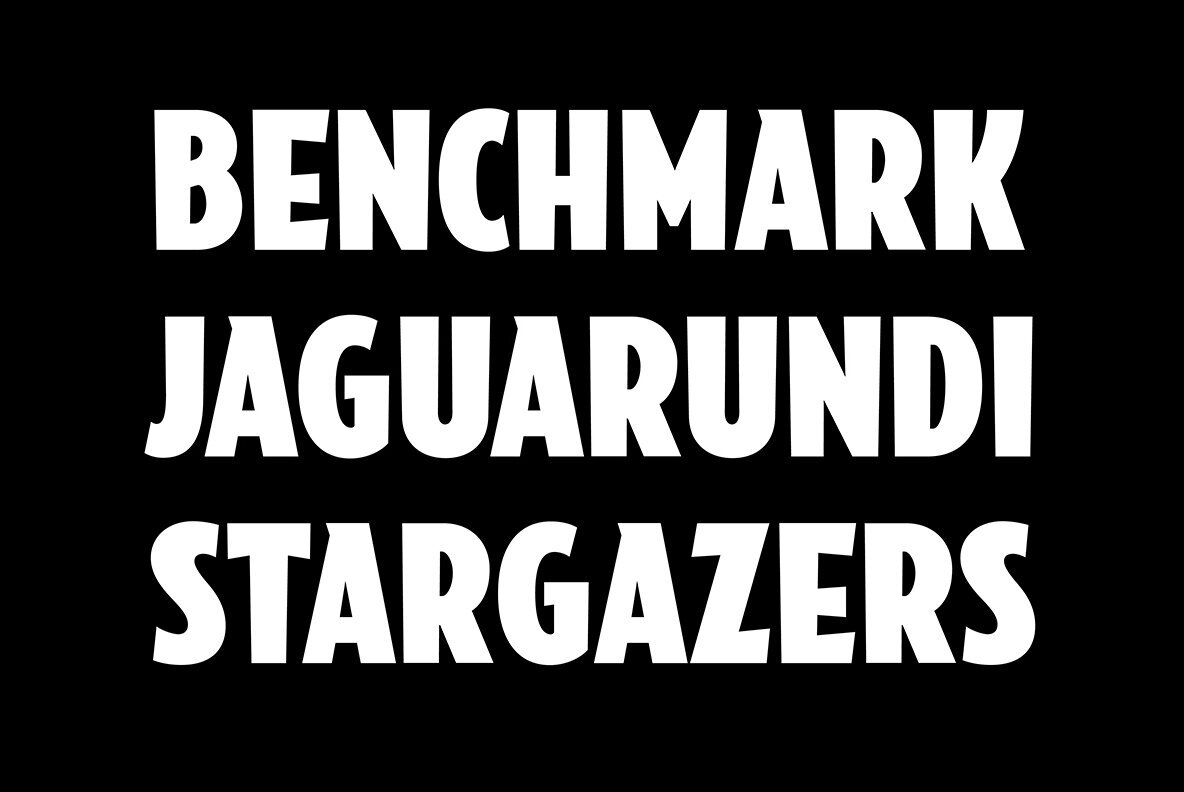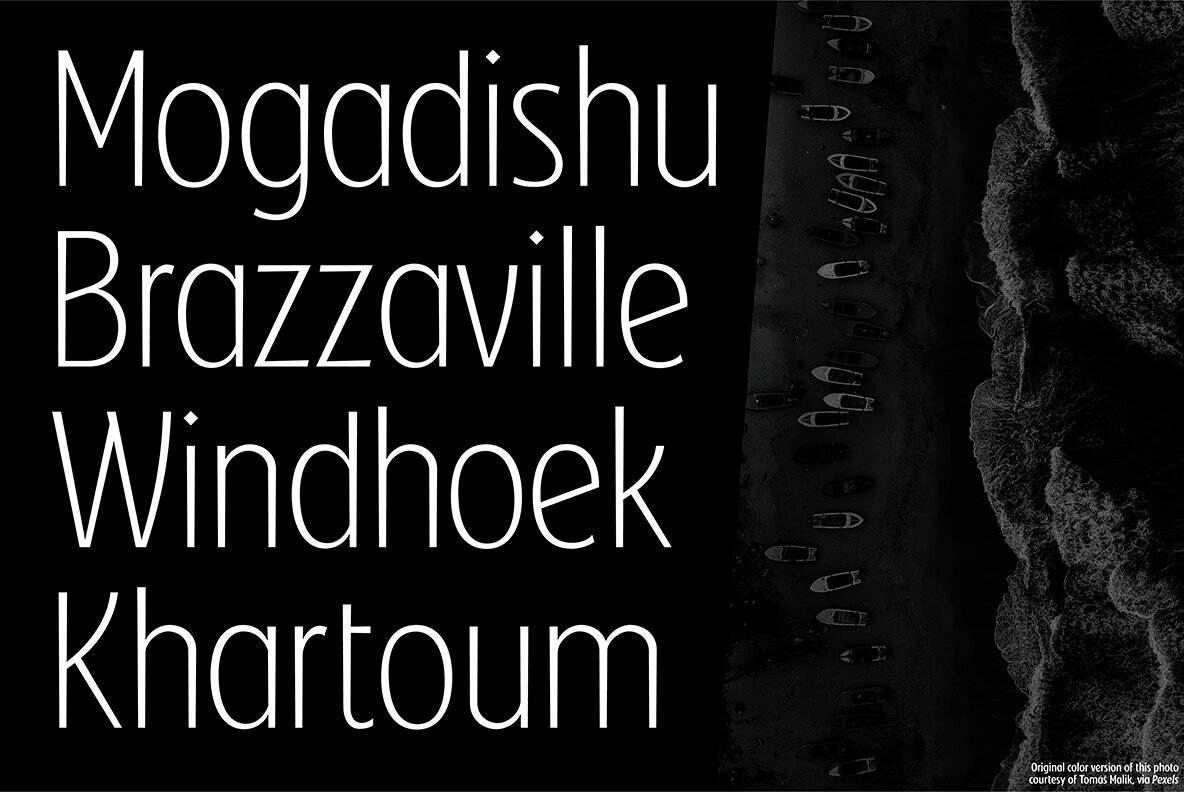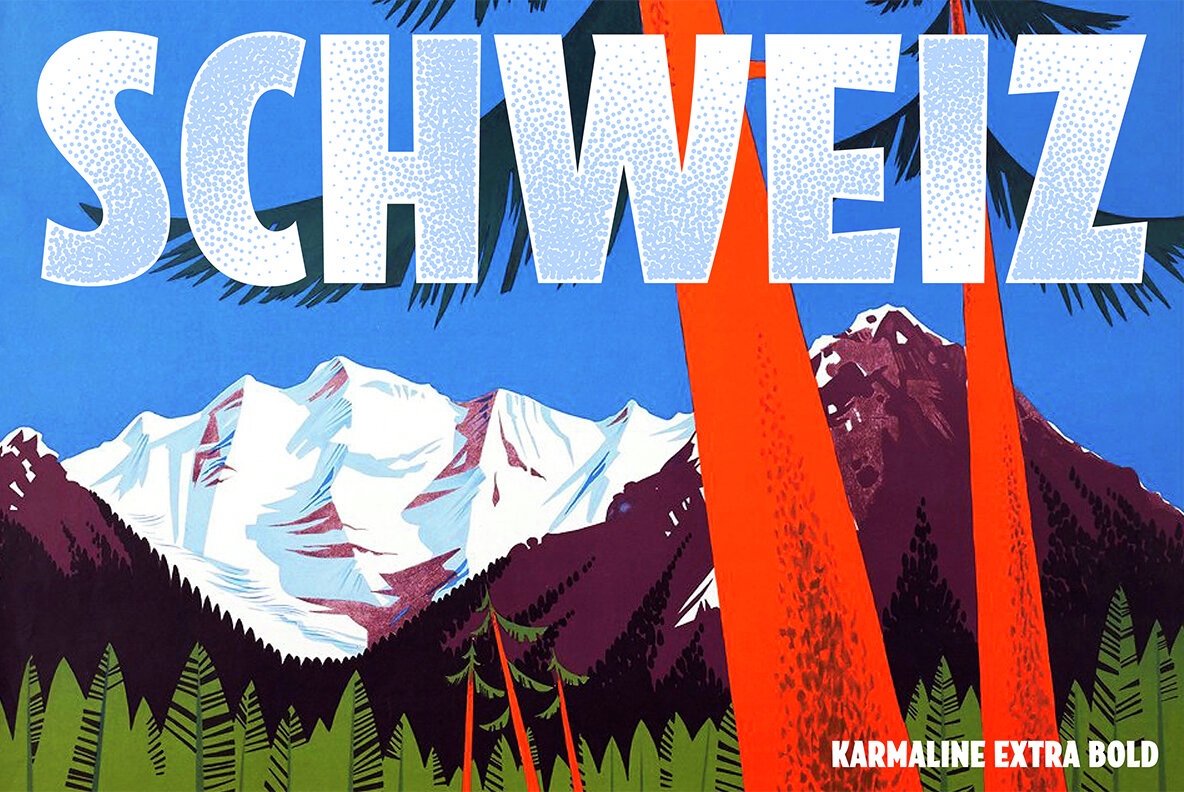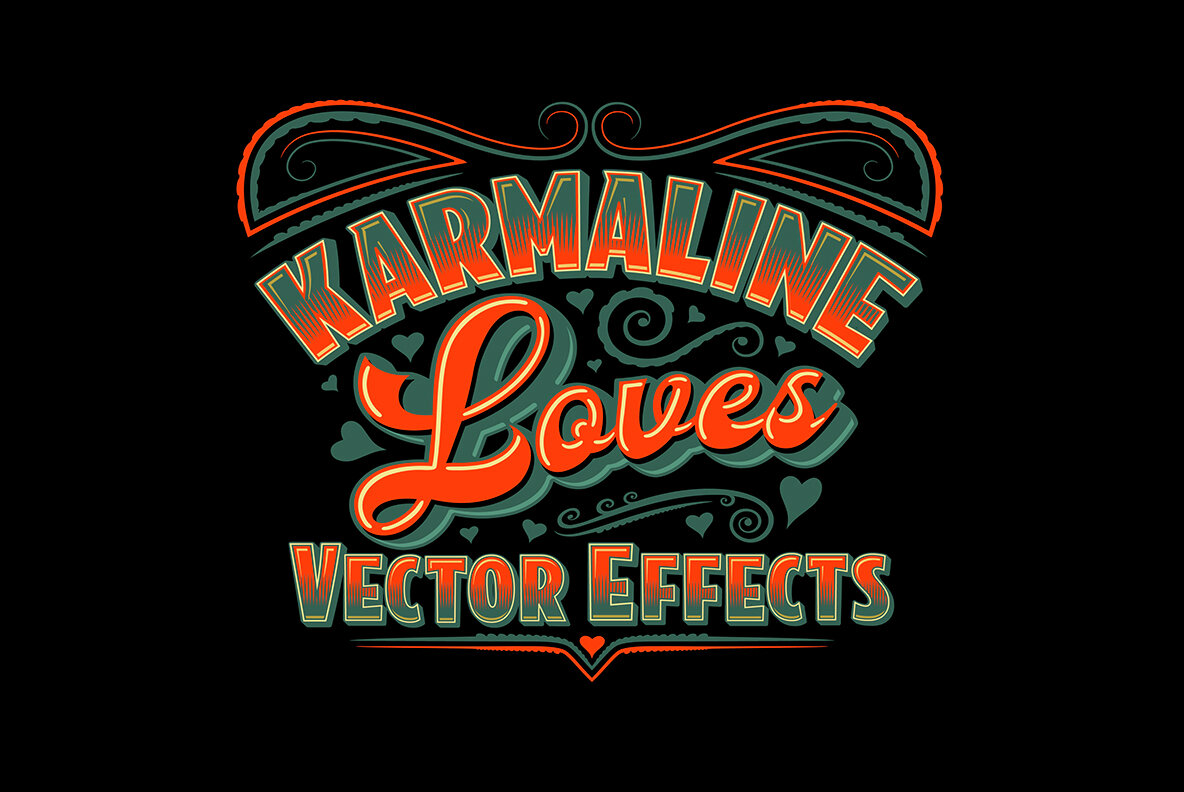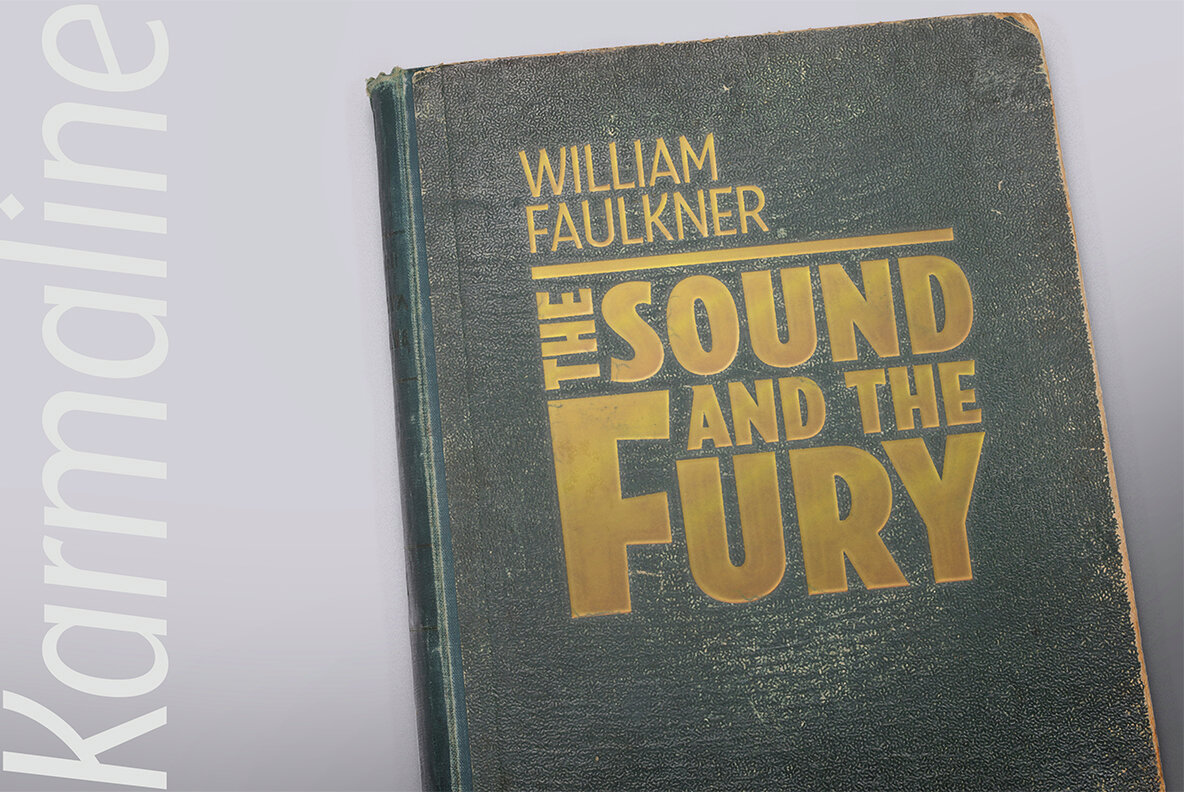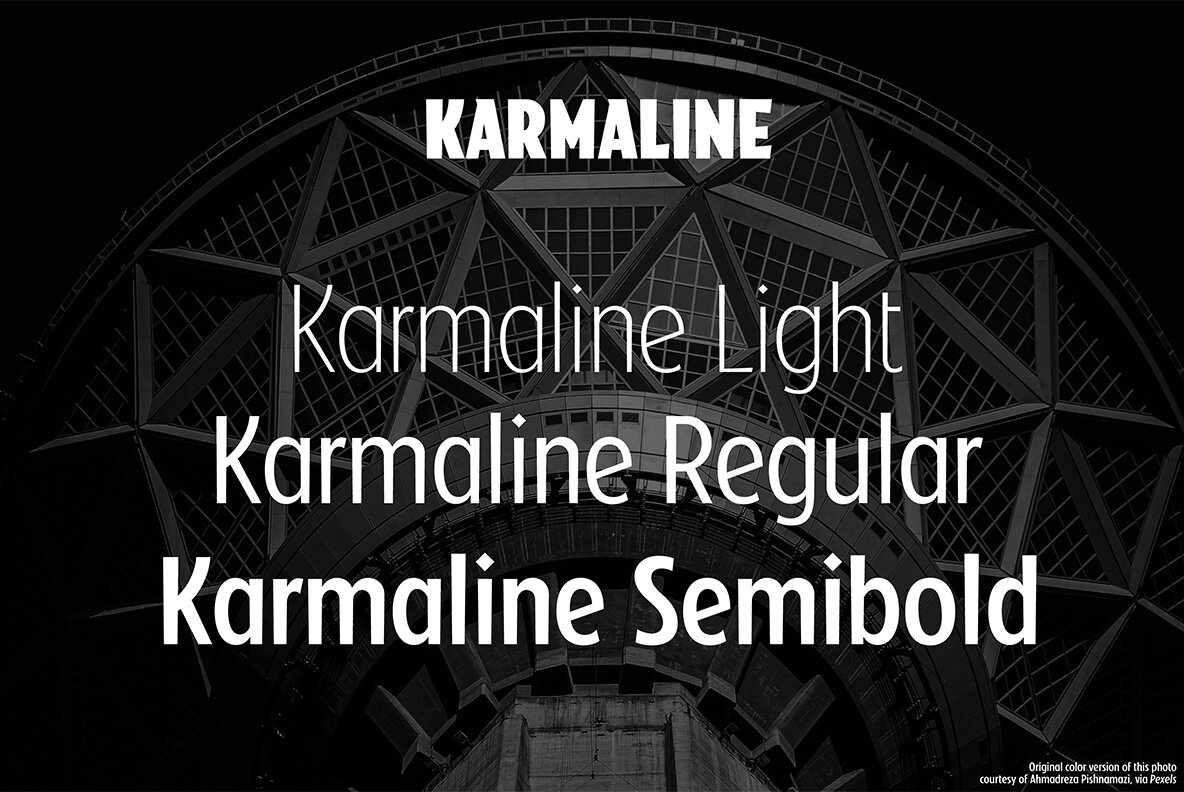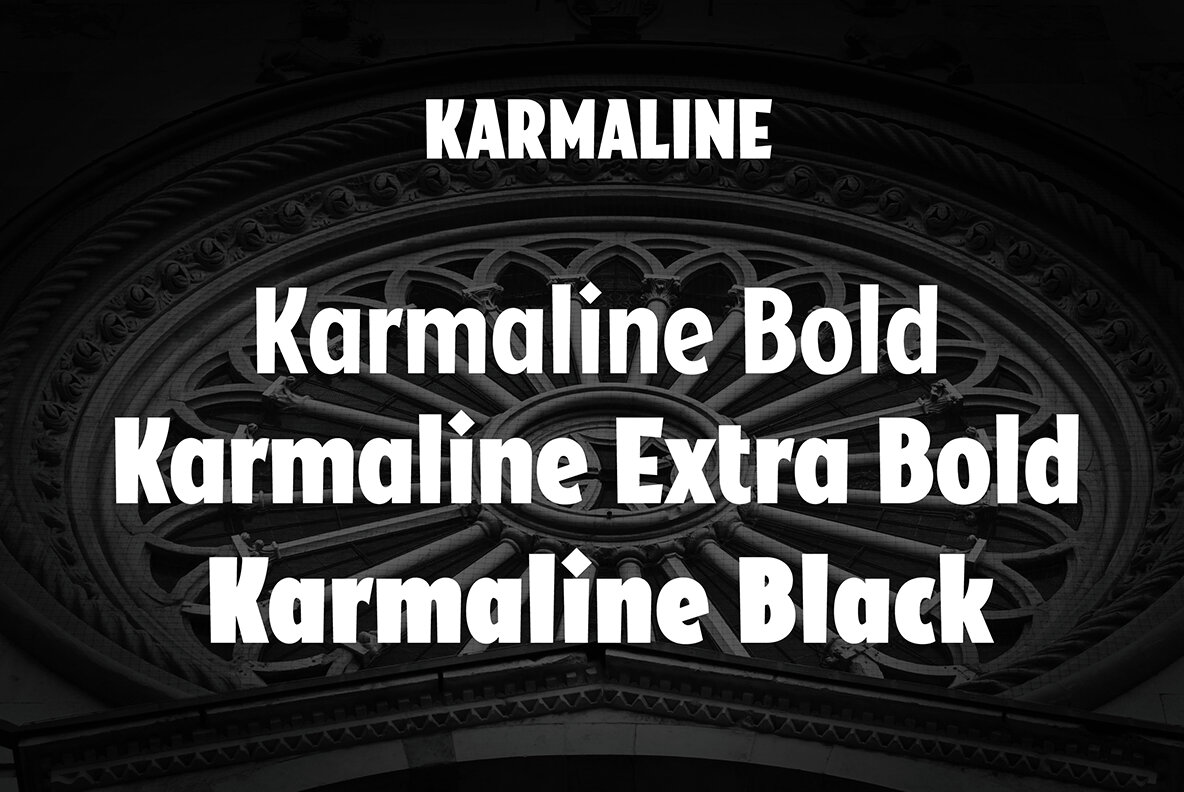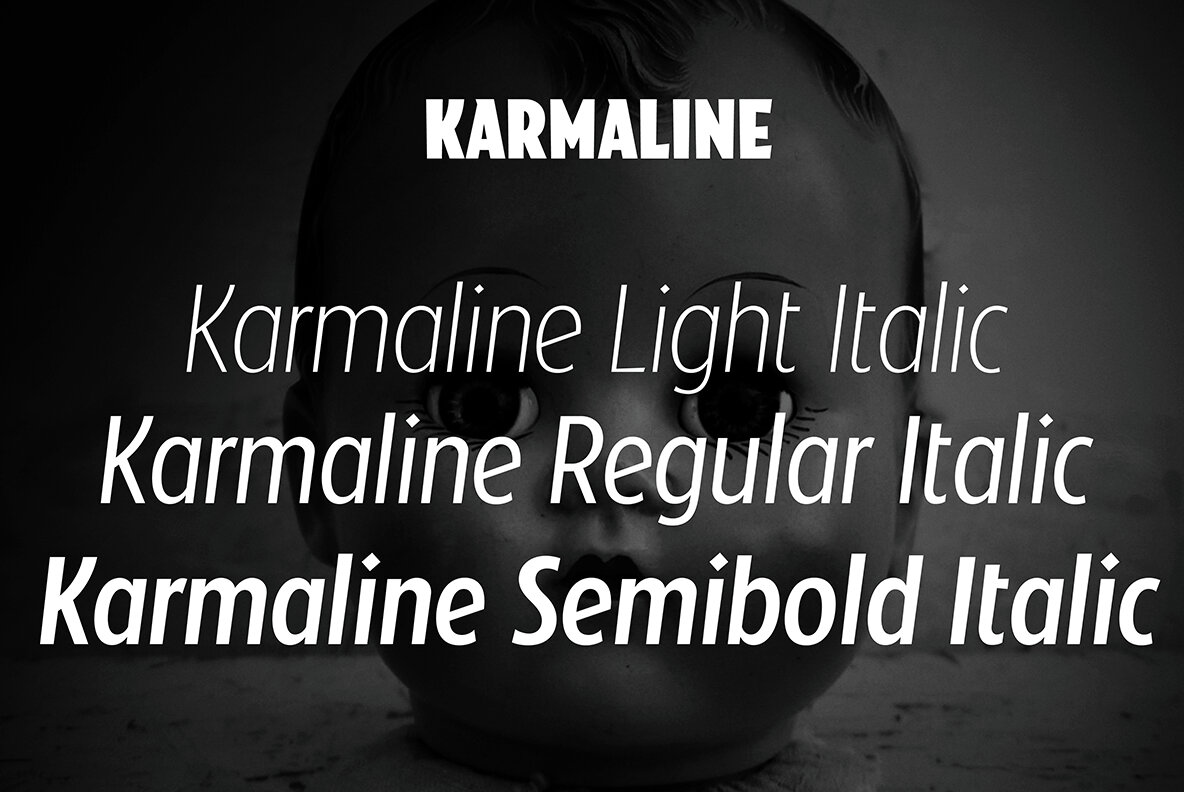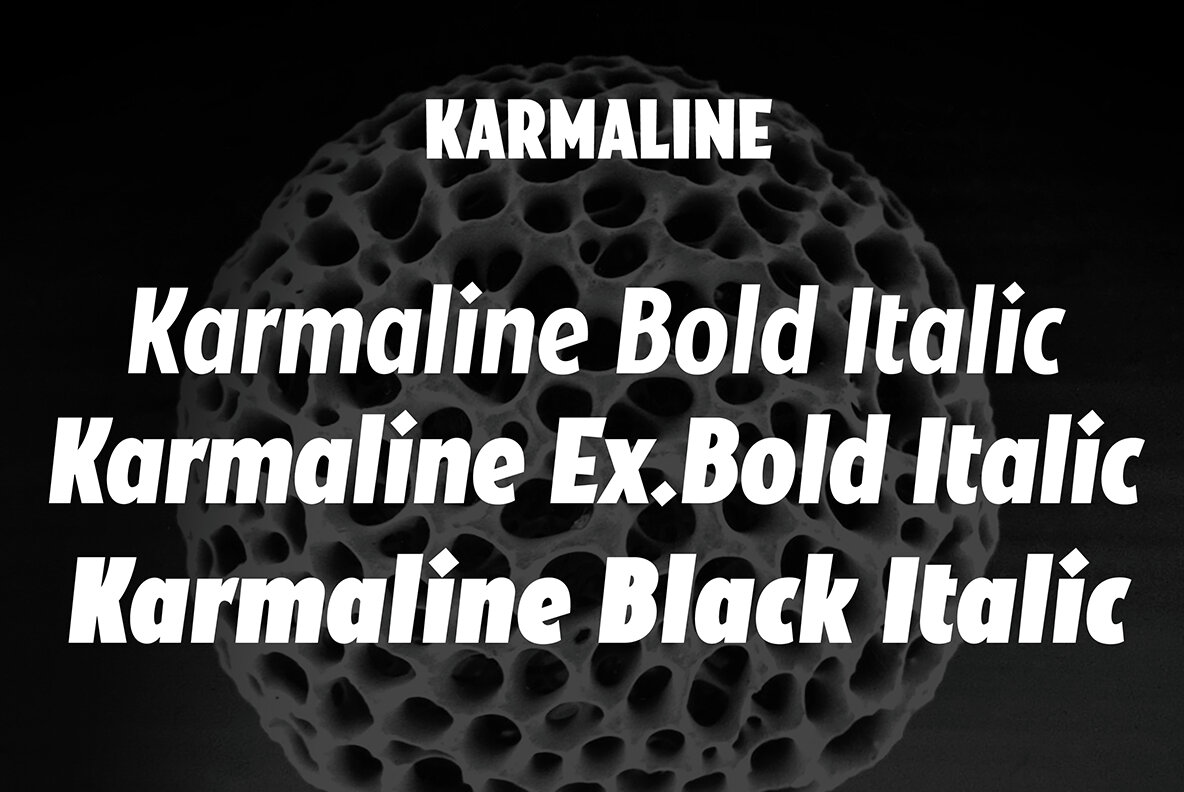
Karmaline Font
Karmaline is a six-weight sans serif font family with a unique and expressive design. This type family has some intriguing special features such as subtly tapered topheavy vertical strokes and selected wedge-shaped horizontal strokes. It is evocative of designs from Switzerland, Germany, and the Netherlands in the period spanning 1900 – 1930, but with thoroughly modern features like high legibility at small sizes, balanced and even inter-character weight and flow, and a medium-high x-height. You'll find Karmaline's semi-condensed width to be useful for both strong headlines and for comfortable copyfitting in narrow column widths, and it has proven to be a real workhorse for vertical format print ad campaigns. This font also works very well when adding layered vector shadow and highlight effects, and is a great choice for logos of all kinds.
Mott Jordan studied studio art and design at U.C. Santa Cruz, and was a self-employed sign painter and later a full-time graphic artist at a local weekly. His type design career began in earnest under Ilene Strizver at International Typographic Corporation in the mid-1990s, releasing two typefaces (ITC Verkehr...